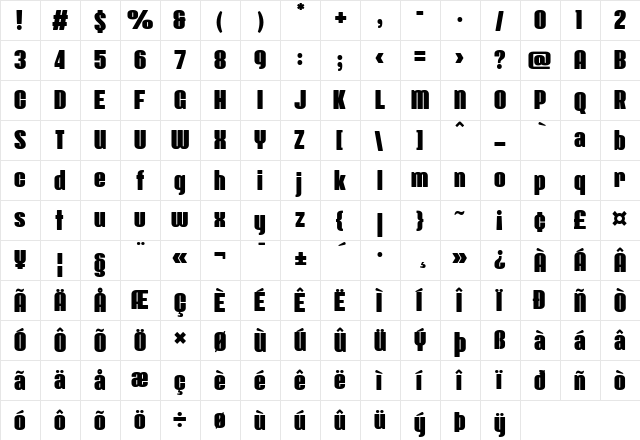
Class-357 Regular
| Foundry | Matthew Willsone |
| Designer | Matthew Willsone |
Design Context for Class-357 Typeface
Class-357 takes a measured approach to typography — its balanced proportions and neutral character make it a reliable workhorse for both digital and print work.